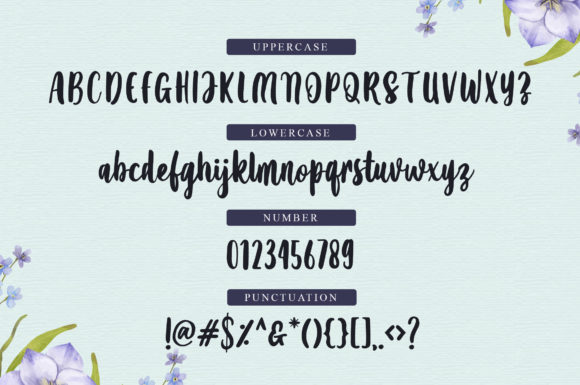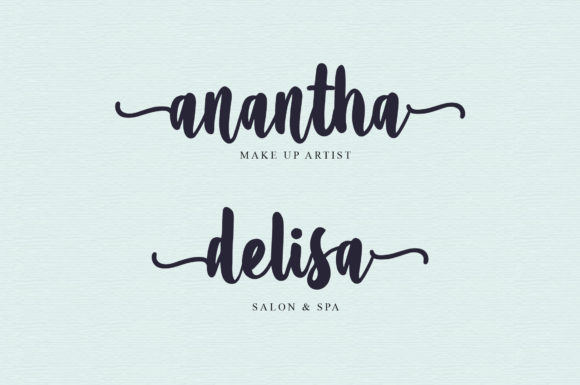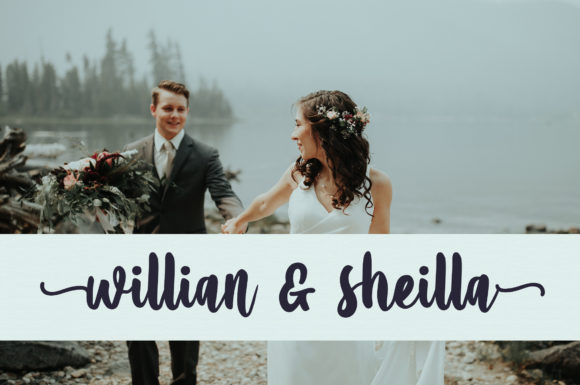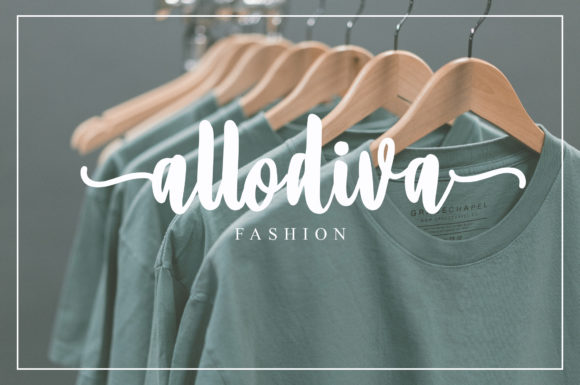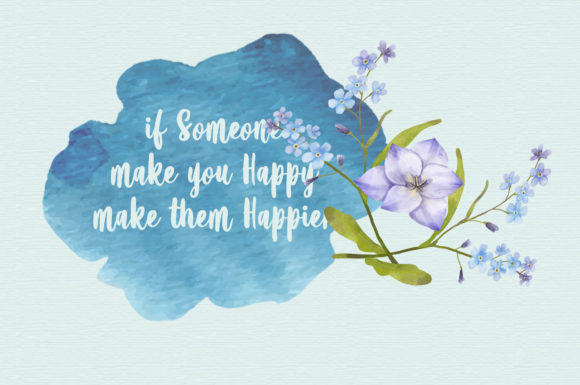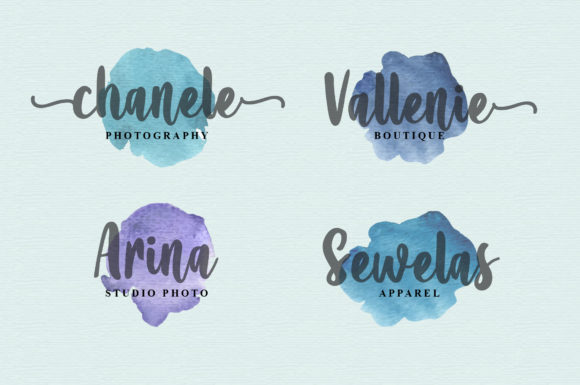
Amanise Font: The Perfect Blend of Sweetness and Elegance
Amanise is a beautiful handwritten font that has captured the hearts of designers and crafters alike with its unique blend of sweetness and elegance. This modern font is perfect for those who want to add a touch of charm and sophistication to their designs. In this article, we’ll dive deeper into the world of Amanise font, exploring its features, uses, and what makes it a must-have for any designer or crafter.
The Charm of Amanise Font
Amanise is an equally sweet and elegant handwritten font with a modern vibe. Its cute charm is undeniable, making it perfect for designs that require a touch of whimsy and playfulness. The font’s unique character set is designed to convey a sense of warmth and friendliness, making it ideal for projects that require a personal touch.
Key Features of Amanise Font
- Handwritten style: Amanise is a handwritten font that boasts a natural, fluid look.
- Modern vibe: The font has a modern feel that makes it perfect for contemporary designs.
- Sweet and elegant: Amanise strikes the perfect balance between sweetness and elegance.
- Cute charm: The font’s unique character set is designed to convey a sense of cuteness and playfulness.
Uses of Amanise Font
Amanise font is versatile and can be used for a wide range of design projects, including:
- Branding and packaging: Amanise is perfect for creating custom logos, labels, and packaging designs.
- Stationery and invitations: The font’s elegant and whimsical feel makes it ideal for designing stationery, invitations, and greeting cards.
- Digital marketing: Amanise can be used to create eye-catching social media graphics, blog posts, and email newsletters.
- Crafting and DIY projects: The font is perfect for crafters who want to add a personal touch to their projects, such as handmade cards, scrapbooking, and journaling.
Why Designers and Crafters Love Amanise Font
Amanise font has become a favorite among designers and crafters due to its unique features and versatility. Here are some reasons why:
- Easy to read: Amanise is a highly legible font, making it perfect for body text and headings.
- Customizable: The font can be easily customized to fit your design needs, including adjusting the font size, color, and style.
- Unique character set: Amanise has a unique character set that includes a range of special characters, making it perfect for designs that require a personal touch.
- High-quality design: The font is designed with high-quality craftsmanship, ensuring that it looks great in any design.
Tips for Using Amanise Font
Here are some tips for using Amanise font in your designs:
- Pair with complementary fonts: Amanise looks great when paired with complementary fonts that have a similar style or vibe.
- Use for headings and titles: The font is perfect for headings and titles, adding a touch of elegance and sophistication to your designs.
- Experiment with colors: Amanise looks great in a range of colors, so don’t be afraid to experiment and find the perfect hue for your design.
Amanise font is a beautiful and versatile handwritten font that is perfect for designers and crafters who want to add a touch of sweetness and elegance to their designs. With its modern vibe, cute charm, and unique character set, Amanise is a must-have for any designer or crafter looking to create stunning designs. Whether you’re working on a branding project, crafting a handmade card, or designing a digital marketing campaign, Amanise font is sure to inspire and delight.